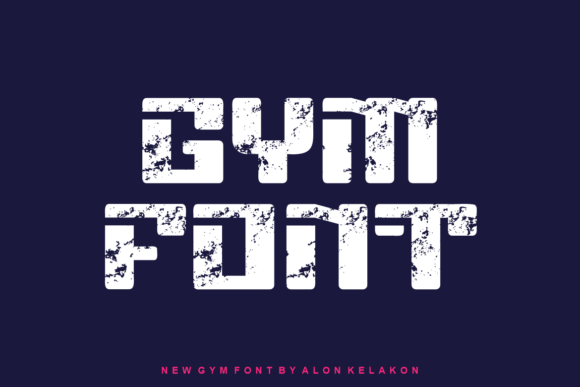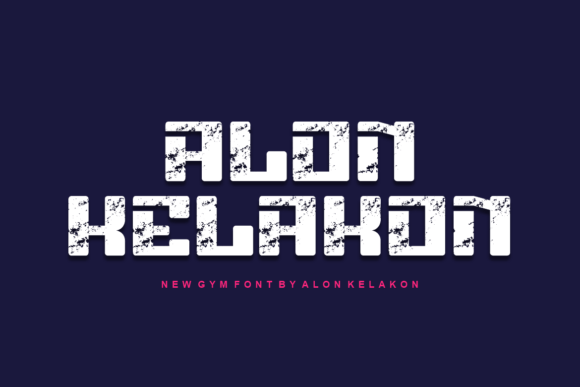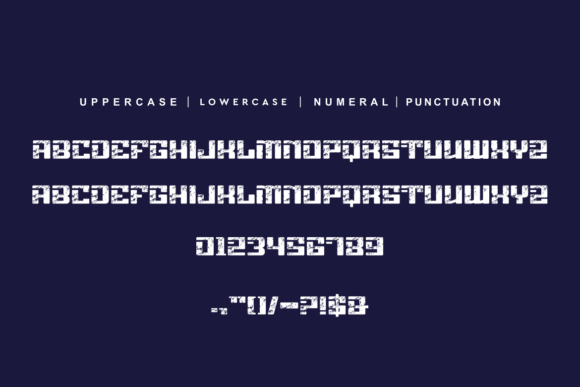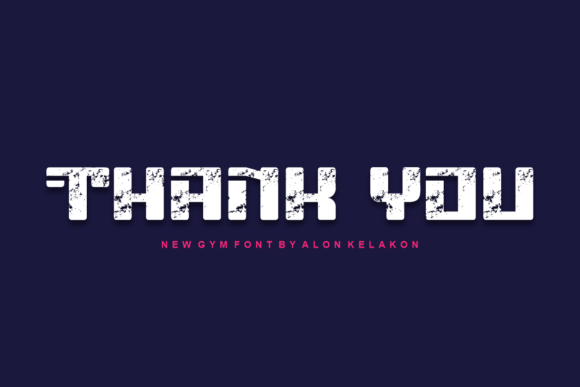
Unlock the Power of Movement: Introducing Gym Workout Font
Who hasn’t experienced that rush of adrenaline when stepping into a gym or racing down the track? The energy is palpable, and the excitement is contagious. As a designer, have you ever wondered how to capture that essence in your work? The answer lies in the Gym Workout Font, a unique and dynamic font that’s designed specifically for the high-octane world of sports and automotive culture.
This font is not just a pretty face; it’s a powerful tool that can elevate your designs and give them a sense of movement and energy. Whether you’re working on a project for a sports brand, a car manufacturer, or a fitness enthusiast, the Gym Workout Font is the perfect companion to help you convey the thrill and excitement of the action.
Gym Workout Font Key Features
- Font Family: Gym Workout Font is a unique, custom-designed font specifically created for gyms, fitness centers, and workout-related applications.
- Unique Characteristics: Features bold, dynamic letterforms with a distressed, athletic aesthetic, perfect for conveying a sense of energy and motivation.
Gym Workout Font Review
As a designer, I was excited to try out the Gym Workout Font and see if it could bring some extra energy to my fitness projects. Here’s my honest review.
- Gym Workout Font has a great energetic feel to it, perfect for fitness and sports-related projects.
- The font is highly customizable, with a range of weights and styles to choose from.
- It’s great for use in digital products, such as apps and websites, due to its clear and modern design.
- The font may be too bold for some projects, such as formal or business-related designs.
- The character set is limited, which may cause issues with international characters or special symbols.
- The font may not be suitable for print projects, due to its digital design and potential lack of legibility at small sizes.
The Gym Workout Font is a great choice for fitness and sports-related projects, but may not be suitable for all types of designs. It’s highly customizable and has a great energetic feel to it, but may be too bold for some projects and has some limitations in terms of character set and print use.
Getting the Most Out of the Gym Workout Font
Use the Gym Workout Font to create eye-catching and motivational workout posters, social media graphics, and other fitness-related designs.
Experiment with different font sizes, colors, and combinations to create a unique and engaging design.
The Gym Workout Font is perfect for:
Workout posters and flyers
Social media graphics and posts
Personal training business branding
Fitness website design
Alternatives to Gym Workout Font
1. Poppins Font
Poppins Font is a modern sans-serif font that is highly legible and versatile. It’s ideal for use in fitness and sports branding, as well as in digital products and websites. Poppins Font has a similar clean and minimalist aesthetic to Gym Workout Font, but with a more extensive range of weights and styles.
Comparison to Gym Workout Font: While Gym Workout Font has a more specific focus on fitness and sports, Poppins Font is a more general-purpose font that can be used in a wider range of applications. Poppins Font is also more customizable and has a more extensive character set.
Open Sans Font is a popular sans-serif font that is highly legible and versatile. It’s ideal for use in digital products, websites, and branding. Open Sans Font has a clean and modern aesthetic, but it’s not as specifically tailored to the fitness and sports industry as Gym Workout Font.
The recommended line height for Gym Workout Font is between 120% and 150% of the font size. This range ensures proper spacing between lines and improves readability. You can adjust the line height according to your design requirements.